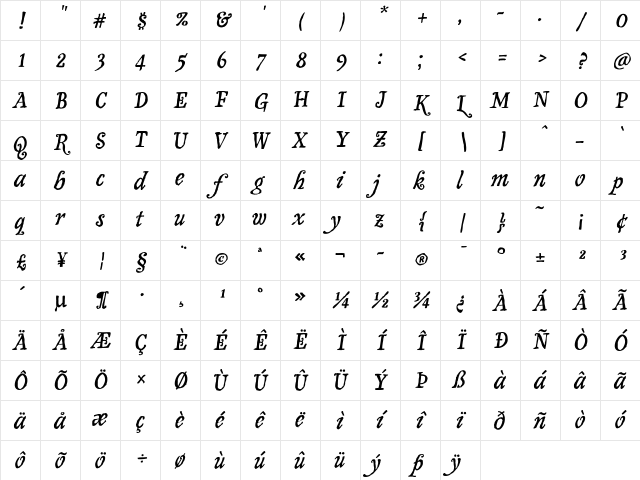
Olduvai Italic
Foundry: Aquatoad Design
Designer: Randy Jones
Design Context for Olduvai
Olduvai is a composed and adaptable typeface that performs quietly and consistently across a wide range of design contexts. The slanted form adds forward momentum and visual energy.
Pro Tip: Use Olduvai for emphasis, pull quotes, and subheadings where its slanted energy can add rhythm to the layout.